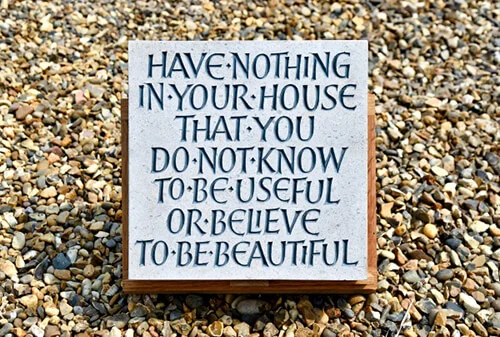
Decorative pieces
People commission a lettering artist for all sorts of reasons, a marriage, a birth, a special event, birthday or a 'just because' gift for a loved one. Hand-carved lettering has a clarity and expressive beauty and has long been used to inscribe names, dates, poems and prose on stone, metal or wood. For more than 30 years, we’ve helped people commission an artist to create beautiful, personal artworks. It all starts with a conversation – either by phone, or in person. We guide you through the process of selecting a letter carving artist and are always on hand should you have any questions.
The Carving Process
Whether it’s a large garden plaque or a small sundial you’ve commissioned, your artist will carefully trace your agreed design directly onto your chosen material. Only when the letters and images are absolutely perfect will the artist commit a hammer to the chisel and start to cut beautifully sculptural letterforms.
The Right Choice
Once we have an idea of what sort of piece you’d like to commission, we review the artists on our register. We’ll help you select the right artist to design and create a decorative piece that will be admired for years to come.
A Drawing Estimate
Once you’ve chosen your artist, you’ll chat with them by phone or email to discuss your ideas. From this, your artist will give you an idea of the costs. They will then create a drawing, this is a collaborative process, with you free to make suggestions on the design. Once you approve a design and the costs, you’ll receive a timing schedule.
Some of our artists are featured here, but contact us if you would like to see more. Their beautiful pieces are also throughout the UK, and at the Lettering Arts Centre.
We work with over 75 independent letter-carving artists around the country, all of whom have been approved by a selection panel of Master letter carvers.
The artist’s workshop was a revelation. I was able to take my time and I was immediately aware of the great quality of his work . He explained the characteristics of differnet materials and what would work with great care.